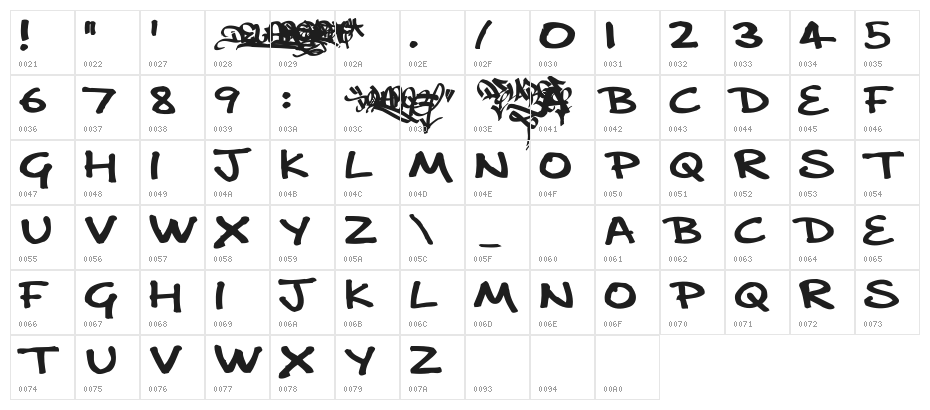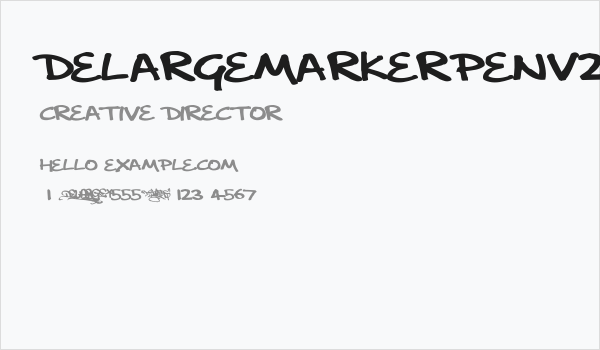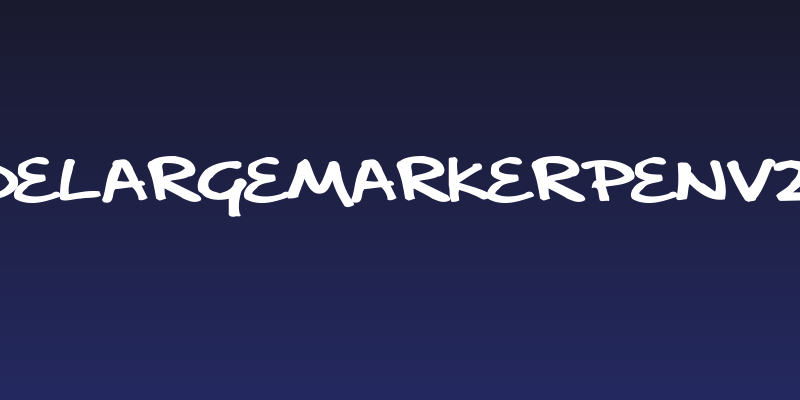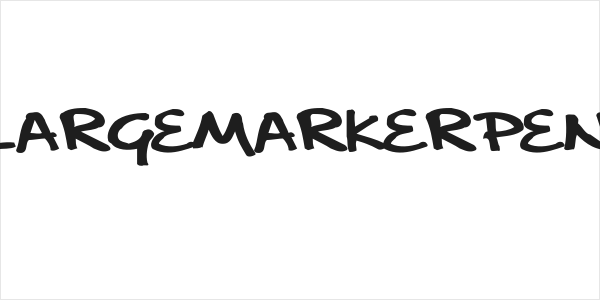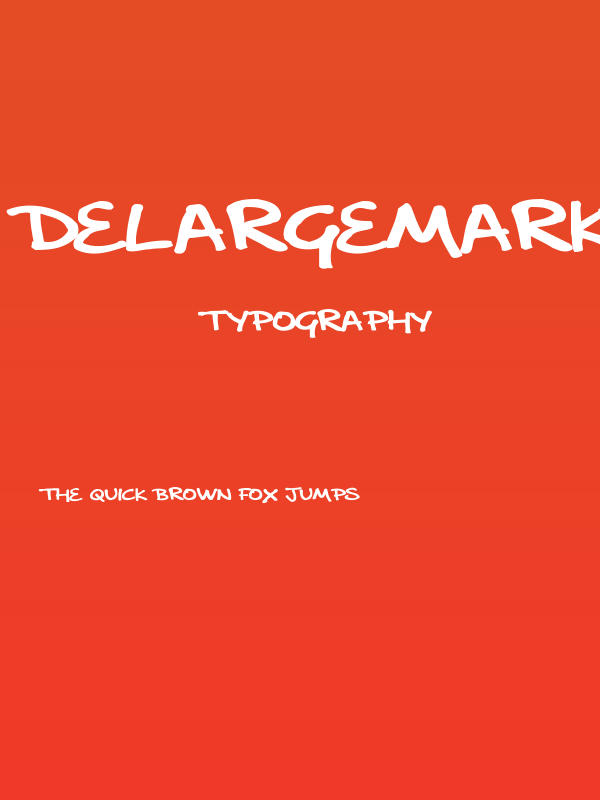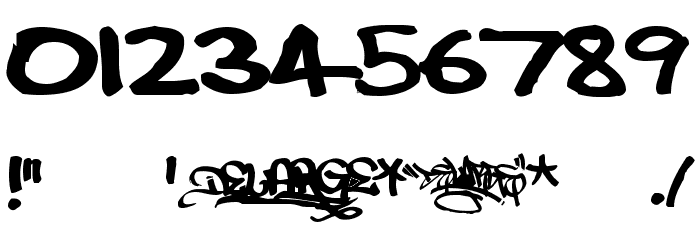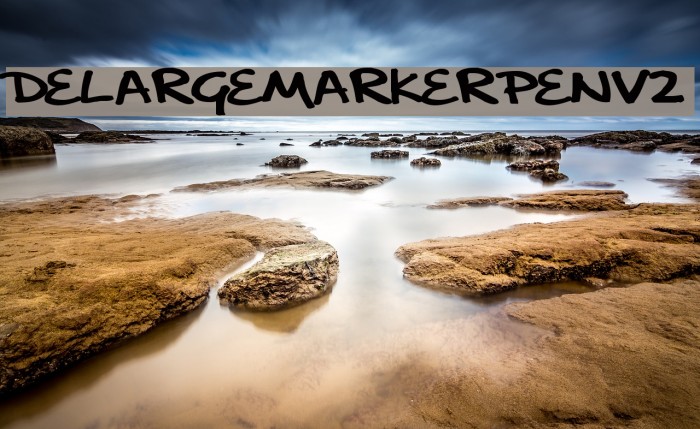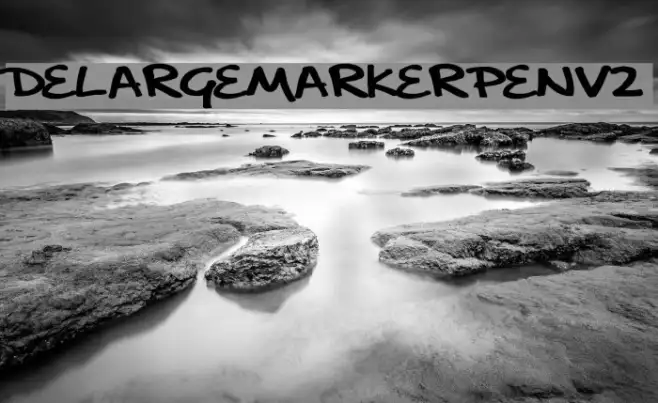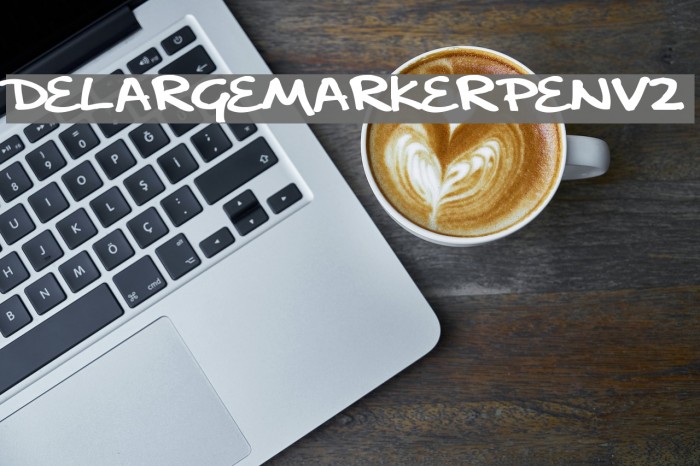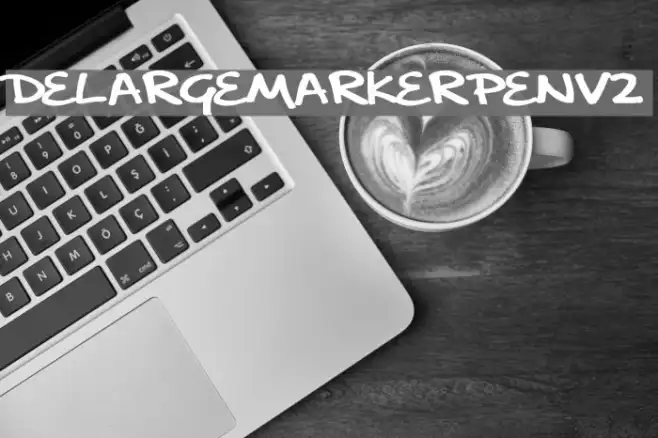
delargeMarkerPenv2 Font
delargeMarkerPenv2 Description
This font exudes a bold and energetic style, reminiscent of handwritten marker strokes. The letters are characterized by their thick, uneven lines and dynamic curves, giving them a lively and informal appearance. The uppercase and lowercase letters maintain a consistent style, with a playful and slightly chaotic feel. Numbers and special characters follow the same bold and expressive design, making them stand out prominently. The overall impression is one of spontaneity and creativity, suitable for projects that require a personal touch.
| Proposed Projects | Ideal for creative projects such as posters, flyers, and branding materials that aim to convey energy and personality. |